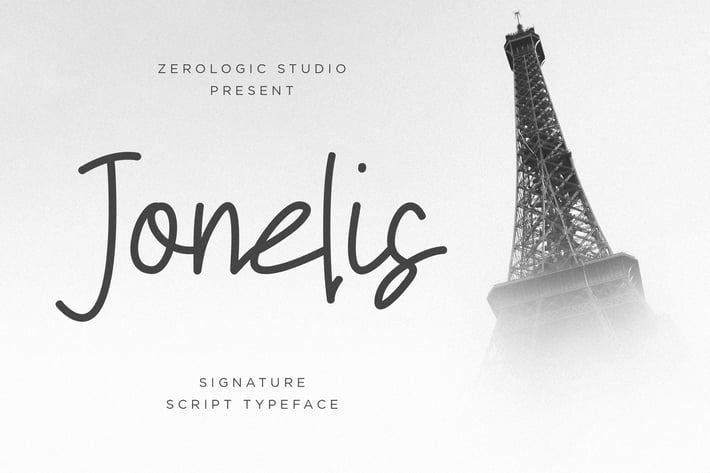
Jonelis Handwritten Typeface
This is the latest Display font from us, very suitable for use in your work presentations such as blog design, modern design, web design, invitation cards, and others. please download and enjoy!
- UPPERCASE & LOWERCASE